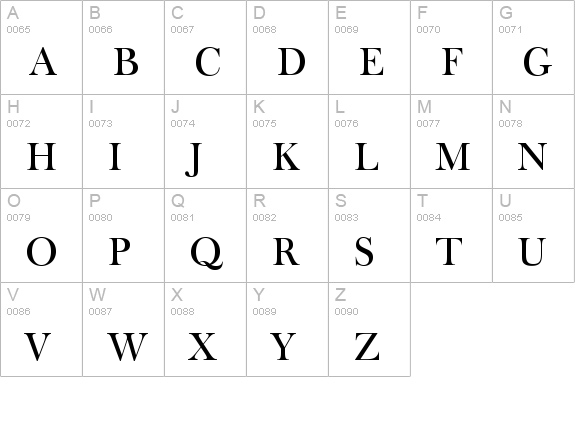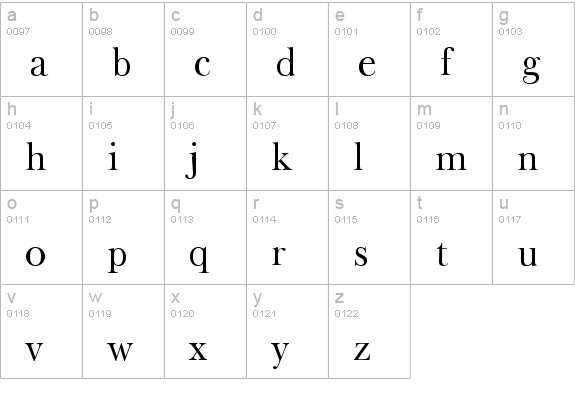
Fry's Baskerville Font Details
Fry's Baskerville font is a timeless classic that exudes elegance and sophistication. Its delicate serifs and graceful curves make it a perfect choice for projects that require a touch of refinement. Whether you are designing a wedding invitation, a magazine layout, or a branding project, Fry's Baskerville will add a touch of class to your work. What's even better is that Fry's Baskerville font is available for free download at FontsMarket.com. This means you can access this beautiful typeface without any cost, making it a valuable addition to your font library. Don't miss out on the opportunity to elevate your designs with the exquisite beauty of Fry's Baskerville font, available for free at FontsMarket.com.